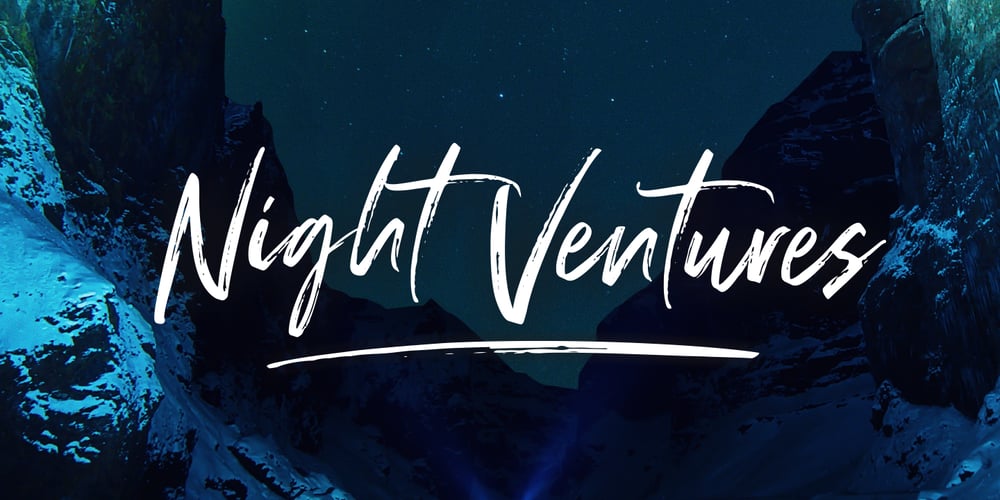
Displatter Font Family was designed by Muhamad Yusron Billah and published by Sronstudio. Displatter contains 1 styles and family package options. Displatter is a natural hand-brushed font, this font is perfect for logo, invitation, stationery, wedding designs, social media posts, advertisements, product packaging, product designs, label, photography, watermark, special events or anything. Displatter comes with full set of uppercase and lowercase letters, multilingual symbols, numerals, punctuation and ligatures. Thank You, Sronstudio